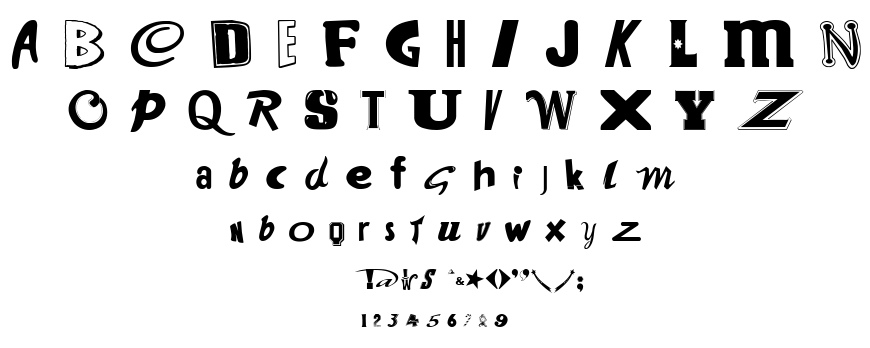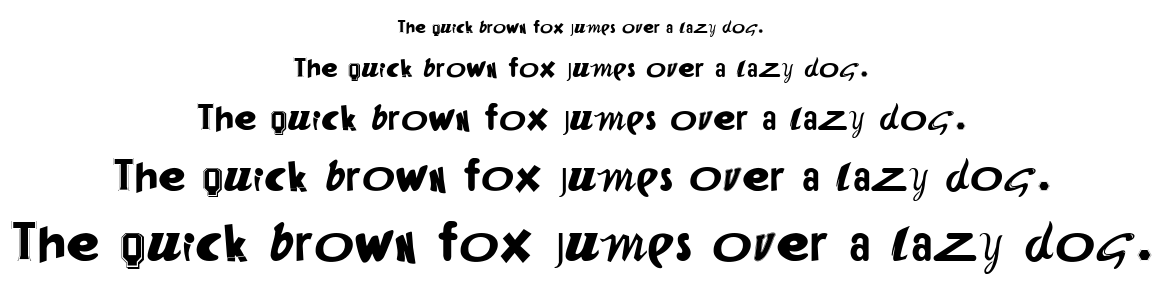
WANT SOME CANDY? font originally created for the sheer pleasure of finding out how many Chocolate and Candy Bars I could find that started with the letters of the alphabet I found 51 letters (26 CAPITALS and 25 Lowercase the lowercase x had to be a last letter) and 7 numbers.
As I could not find 2,4 and 7 they did not exist a Candy Cane is used for 7, the 2 gave the font it’s name, from the famous Predator “WANT SOME CANDY” and then the 4 offered itself to this latest font being donated to help raise awareness for the 4Children Registered Charity 288285, so if you download this please donate whatever you can to Charities Commission @ http://bit.ly/K9XMbP